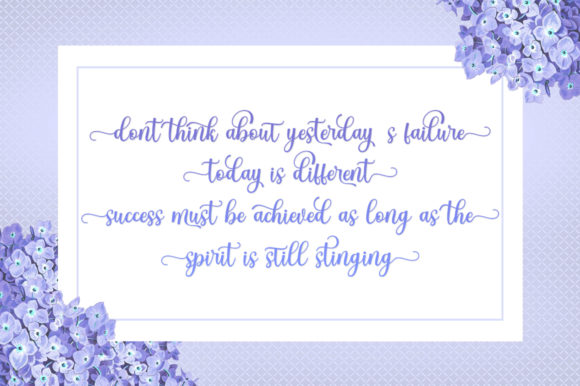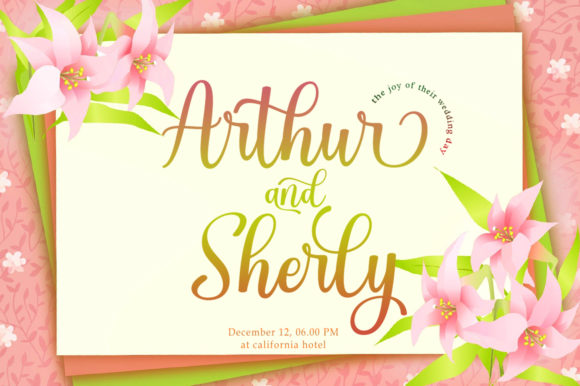
Hello Summer Font
db-ku.com - Script & Handwritten -- Hello Summer is an incredibly distinct, delicate, and timeless handwritten font. It looks stunning on wedding invitations, thank you cards, quotes, greeting cards, logos, business cards, and every other design which needs a handwritten touch.